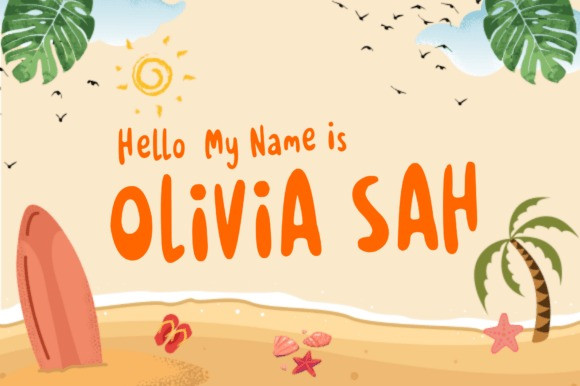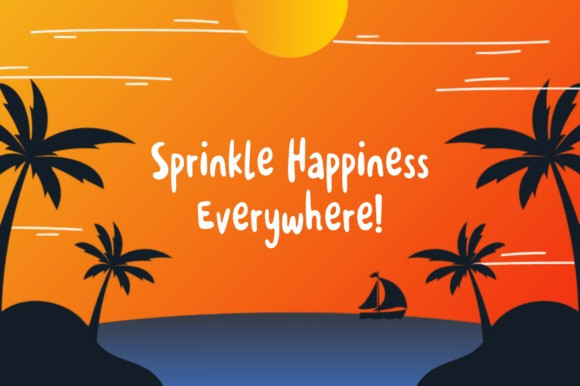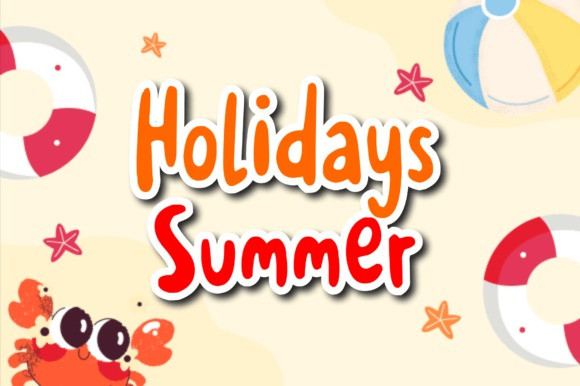
Holidays Summer Font
Holidays Summer Font is a cheerful handwritten display font inspired by sunny beach days, tropical vacations, and carefree summer adventures. Featuring smooth curves, playful letterforms, and a friendly hand-drawn style, this font brings warmth, fun, and energy to every design.
Perfect for summer-themed projects, travel branding, beach party invitations, children’s products, social media posts, posters, stickers, packaging, and seasonal promotions, Holidays Summer adds a vibrant and joyful touch that instantly captures the spirit of sunshine and relaxation.
Whether you’re creating vacation-inspired graphics or playful branding, Holidays Summer delivers a fresh, fun, and memorable look.